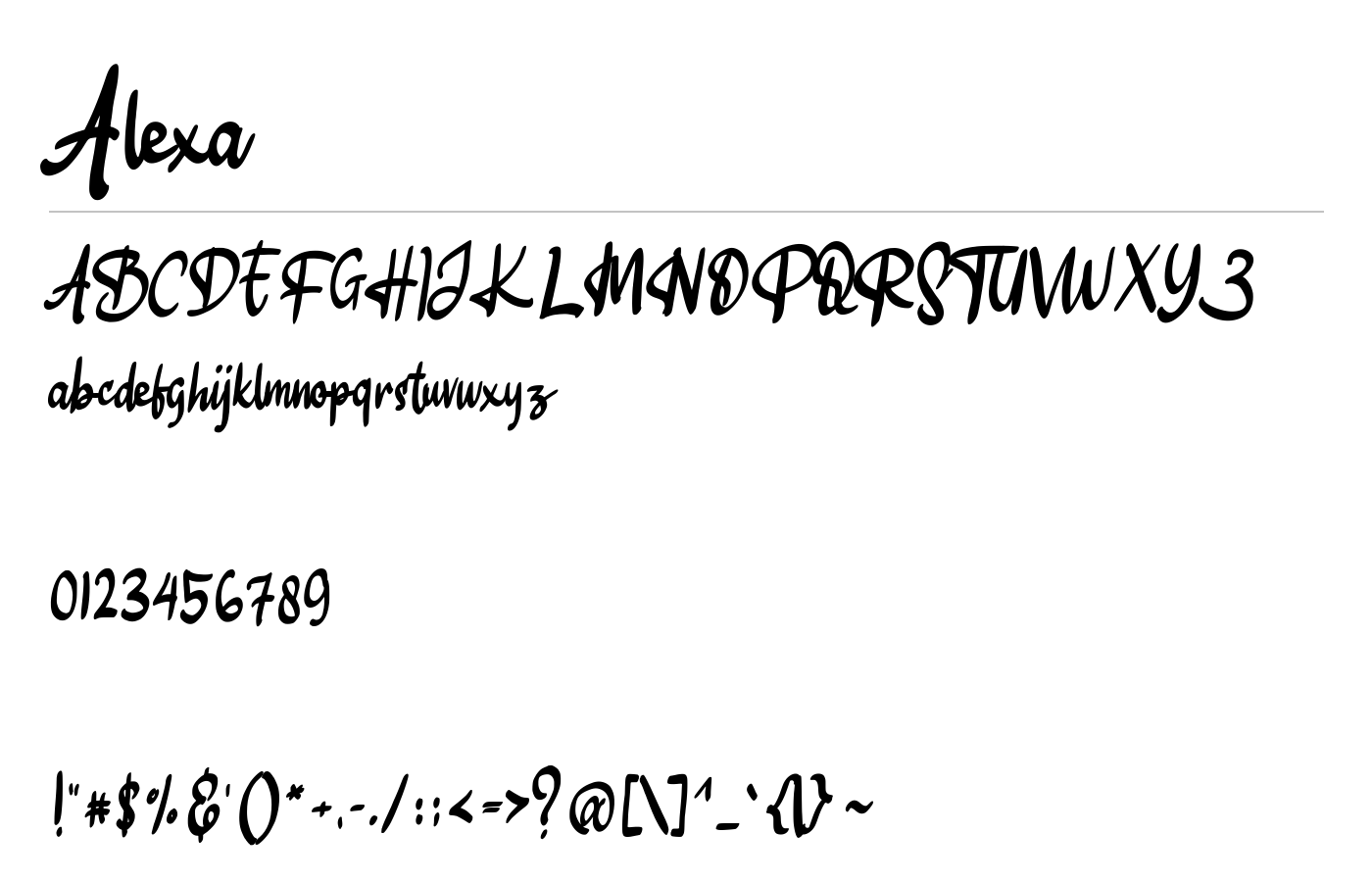
Alexa is a lively and expressive script font with a casual, handwritten feel. Its smooth, flowing strokes and moderate contrast create a friendly and approachable style, making it ideal for branding, invitations, and creative projects that seek a personal or artistic touch. This font works well for headlines or display use where a warm, modern, and informal voice is desired.
Alexa Font
About Alexa Font
| Font family | Alexa Font |
| Designer | Fannan Studio |